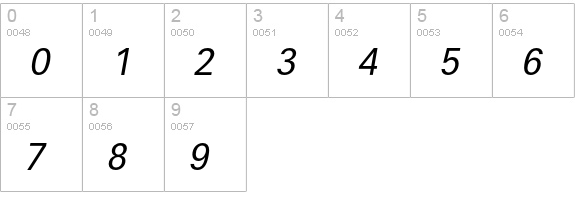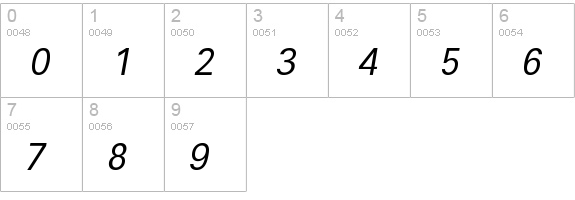
MaximaEF-LightOblique Font Details
MaximaEF-LightOblique is a sleek and elegant font that exudes sophistication and modernity. Its light oblique style adds a subtle touch of flair, making it perfect for a variety of design projects. Whether used for branding, editorial design, or web content, this font effortlessly combines readability with a touch of personality. What sets MaximaEF-LightOblique apart is not only its stylish appearance but also the fact that it is available for free download at FontsMarket.com. This means that you can easily access this high-quality font without any cost, making it a valuable resource for designers, creatives, and anyone looking to add a touch of refinement to their projects. With its clean lines, unique oblique style, and versatility, MaximaEF-LightOblique is sure to elevate your designs and make a lasting impression. Download this font today and discover the endless possibilities it offers for your creative endeavors.